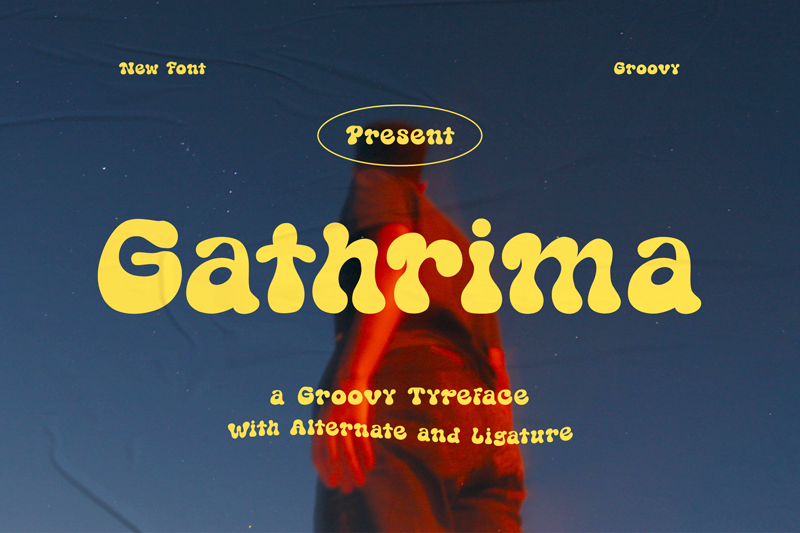
Font name: | Gathrima |
Author: | Type Factory |
Note by Type Factory | |
Introducing, Gathrima. A groovy font which will bring you to fun vibes. Gathrima feels playfully nostalgic and delivers an incredible groovy aesthetic. Use this display font to add that special touch to any design idea you can think of! Full Version Download Here : https://typefactory.co/product/gathrima-a-groovy-typeface/ https://www.creativefabrica.com/product/gathrima/ref/501262/ |